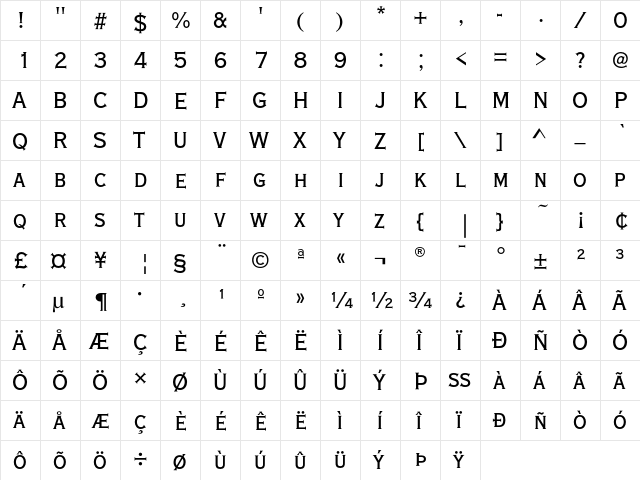
CopperplateEF MediumCond
Design Context for CopperplateEF Typeface
CopperplateEF takes a measured approach to typography — its balanced proportions and neutral character make it a reliable workhorse for both digital and print work. The condensed width makes it efficient for tight spaces without sacrificing legibility.